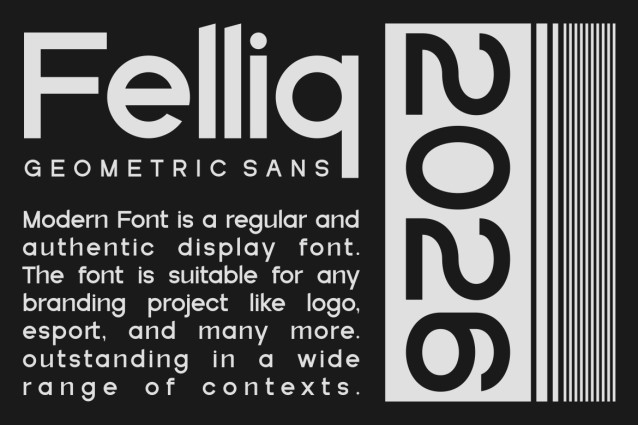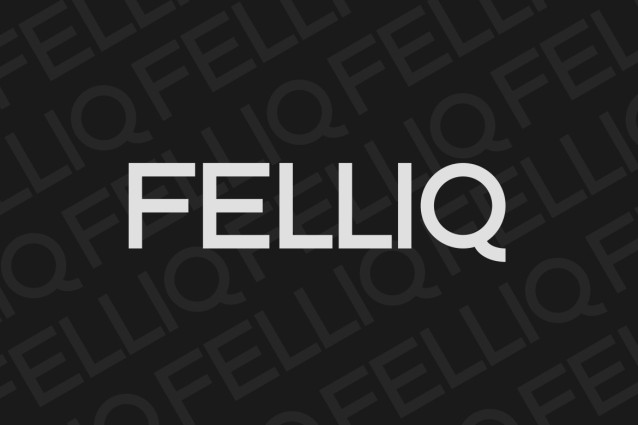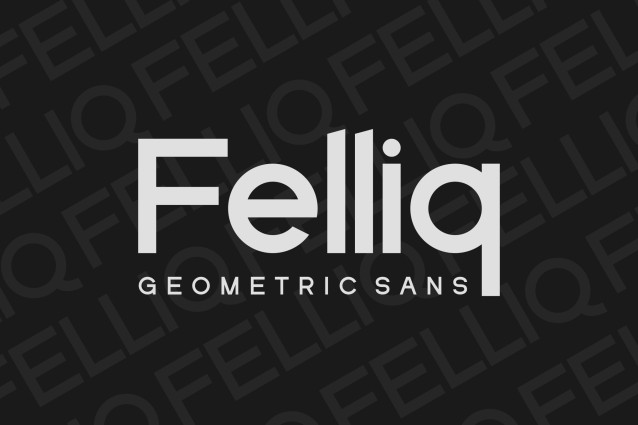
Felliq Font
Felliq Font – Geometric Sans is a classic and authentic display font. It’s suitable for all branding projects, such as logos, esports, and more. It looks exceptional in a wide range of contexts.